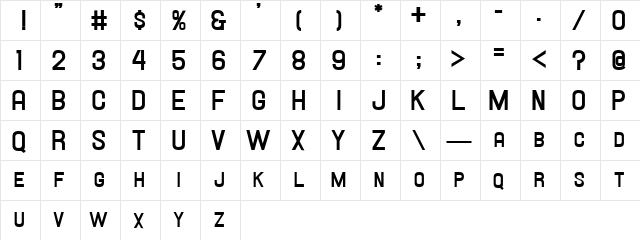
Hallandale SC Bold JL Regular
Design Context for Hallandale SC Bold JL Typeface
Hallandale SC Bold JL offers clean, dependable letterforms without strong stylistic allegiance, making it a practical choice for designers who need flexibility. The heavy weight commands attention and anchors typographic hierarchies.